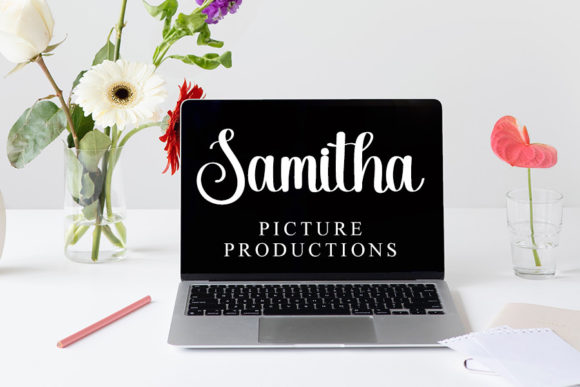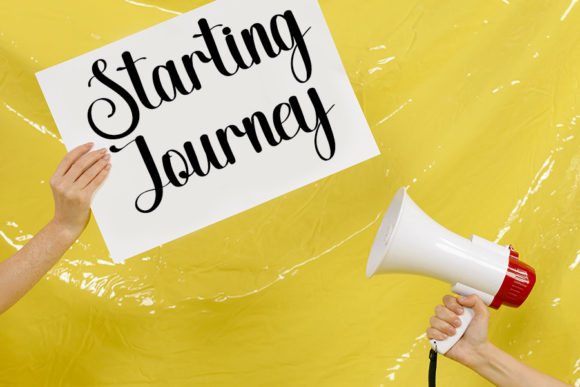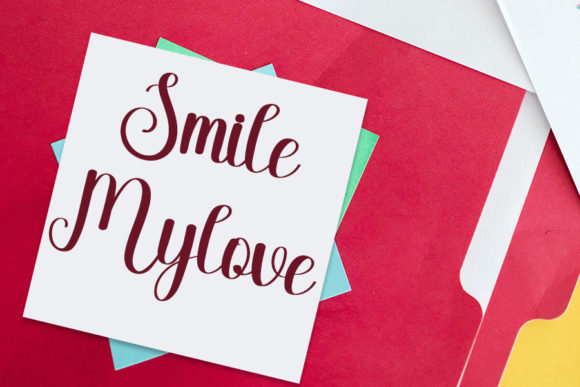
Sample Handmade Font
About Sample Handmade Font
“Introducing Sample Handmade, a trendy handwritten font with a contemporary atmosphere and impeccable form. Inspired by timeless classic calligraphy, this font exudes elegance and sophistication, making it a perfect choice for any design project that requires a touch of class.
Sample Handmade is not just a font; it’s a design tool that brings your creative vision to life. Its contemporary atmosphere and impeccable form are a testament to the beauty of handwritten script, adding a personal touch to any project it graces. Whether you’re designing a logo for a high-end brand, creating invitations for a posh event, or simply adding a touch of class to your website, Sample Handmade is the font for the job.
The versatility of Sample Handmade allows it to be used across a wide array of products, catering to diverse needs and requirements. Its beautiful and balanced character fits well with a large design pool, making it a versatile choice for a wide range of applications.
In conclusion, Sample Handmade is more than just a pretty face. It’s a powerful tool that can help you create stunning, SEO-friendly content. It’s a font that was crafted with care, designed to deliver the results you want. So why wait? Start creating with Sample Handmade today, and see the difference it can make in your work.”